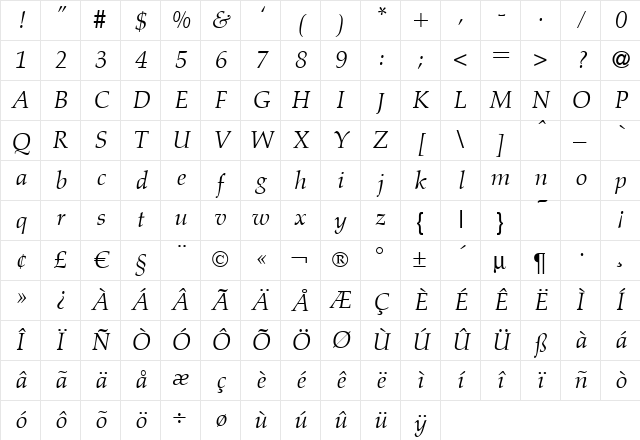
A760-Roman Italic
Design Context for A760-Roman
A760-Roman is a composed and adaptable typeface that performs quietly and consistently across a wide range of design contexts. The slanted form adds forward momentum and visual energy.
Pro Tip: Use A760-Roman for emphasis, pull quotes, and subheadings where its slanted energy can add rhythm to the layout.